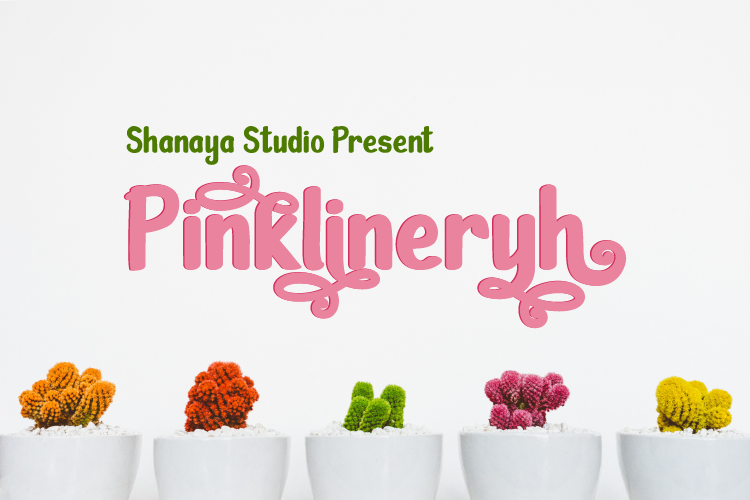
Preview and download Pinklineryh Font. Created by Shanaya Studio in Fancy Various styles with Free for personal use license.
Hello world, If you like using my font then I suggest giving a little donation to this small studio, thanks .. Link to purchase: https://fontbundles.net/shanaya Link to donation: https://paypal.me/wahysapt?locale.x=en_US Pinklineryh Font Introducing This is our newest product called Pinklineryh. The name is taken from the salient nature of this font, which is about the softness and cuteness of each existing letter form, coupled with diverse alternative characters that are able to make pinklineryh become a very unique font. Pinklineryh is really great font for logo, blog/web headline, clothing, invitation, poster, cafe/resto sign, and many others. File Included: Pinklineryh TTF Pinklineryh OTF I hope you enjoy this font. If you have any questions please don't hesitate to drop me a message.. Thank You, World.. Shanaya Creative, |